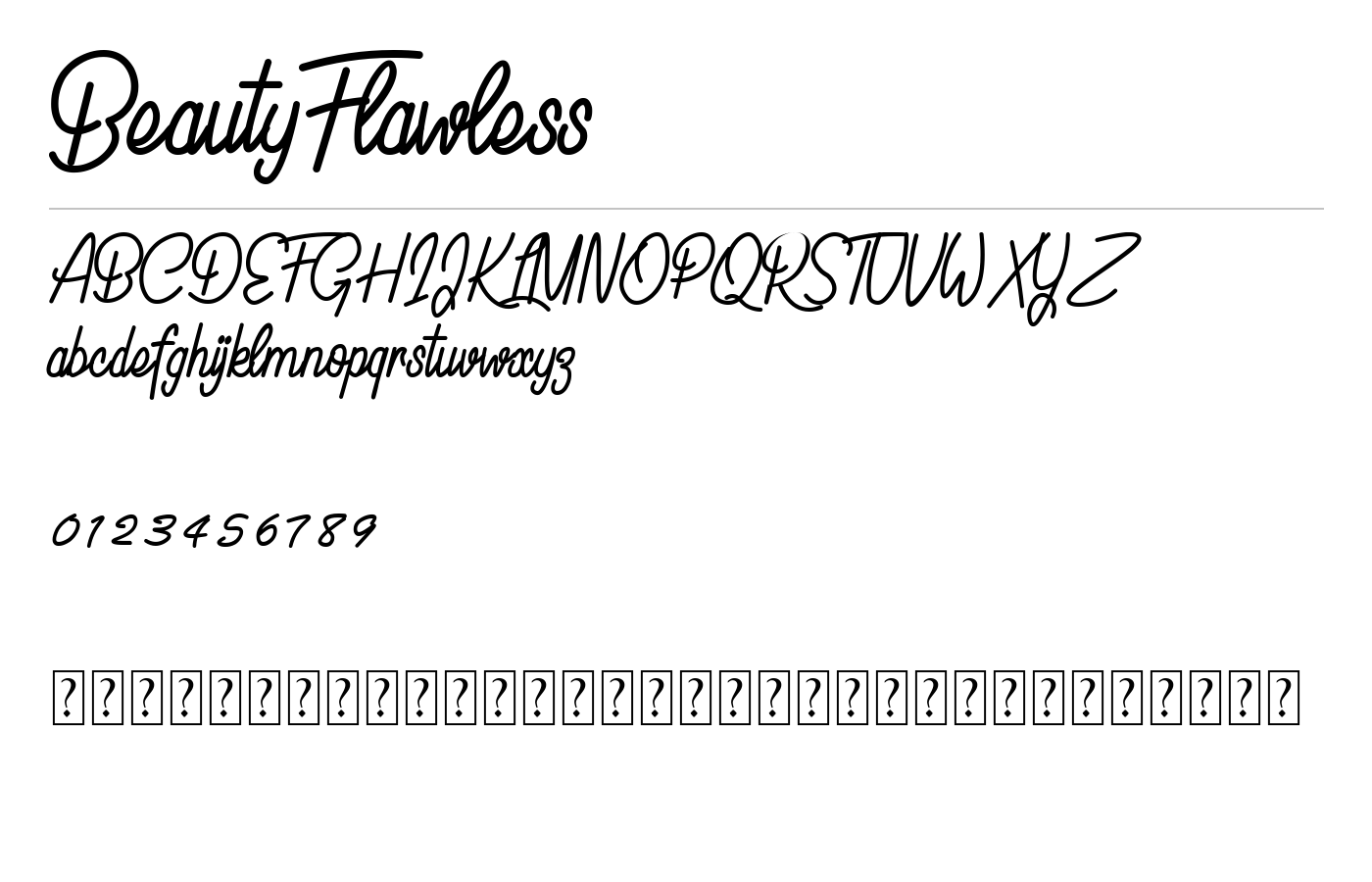
BeautyFlawless is an elegant, handwritten script font with a smooth and fluid style that conveys a friendly yet sophisticated feel. Its slender, slightly condensed letterforms with a moderate x-height and delicate strokes make it perfect for branding, invitations, and feminine editorial projects where a personal, graceful touch is desired. The font’s distinctive uppercase characters and consistent rhythm add charm and professionalism to designs seeking a modern yet approachable look.
BeautyFlawless Font
About BeautyFlawless Font